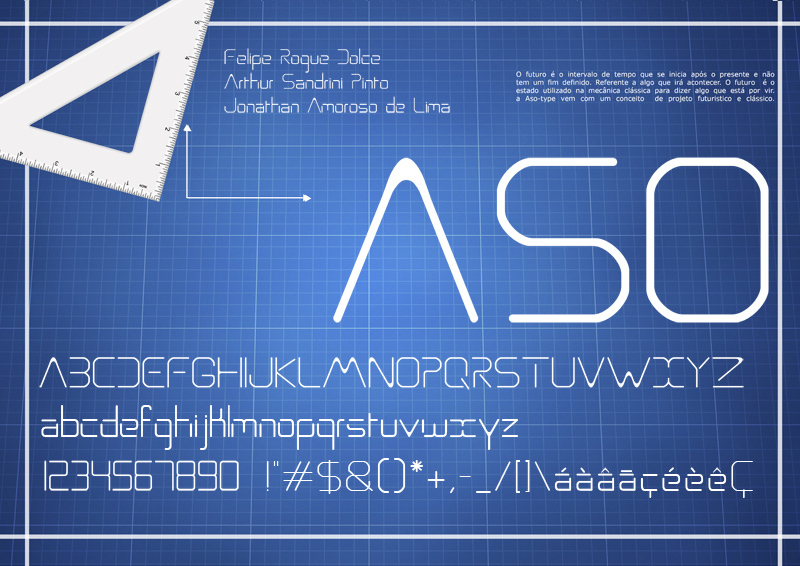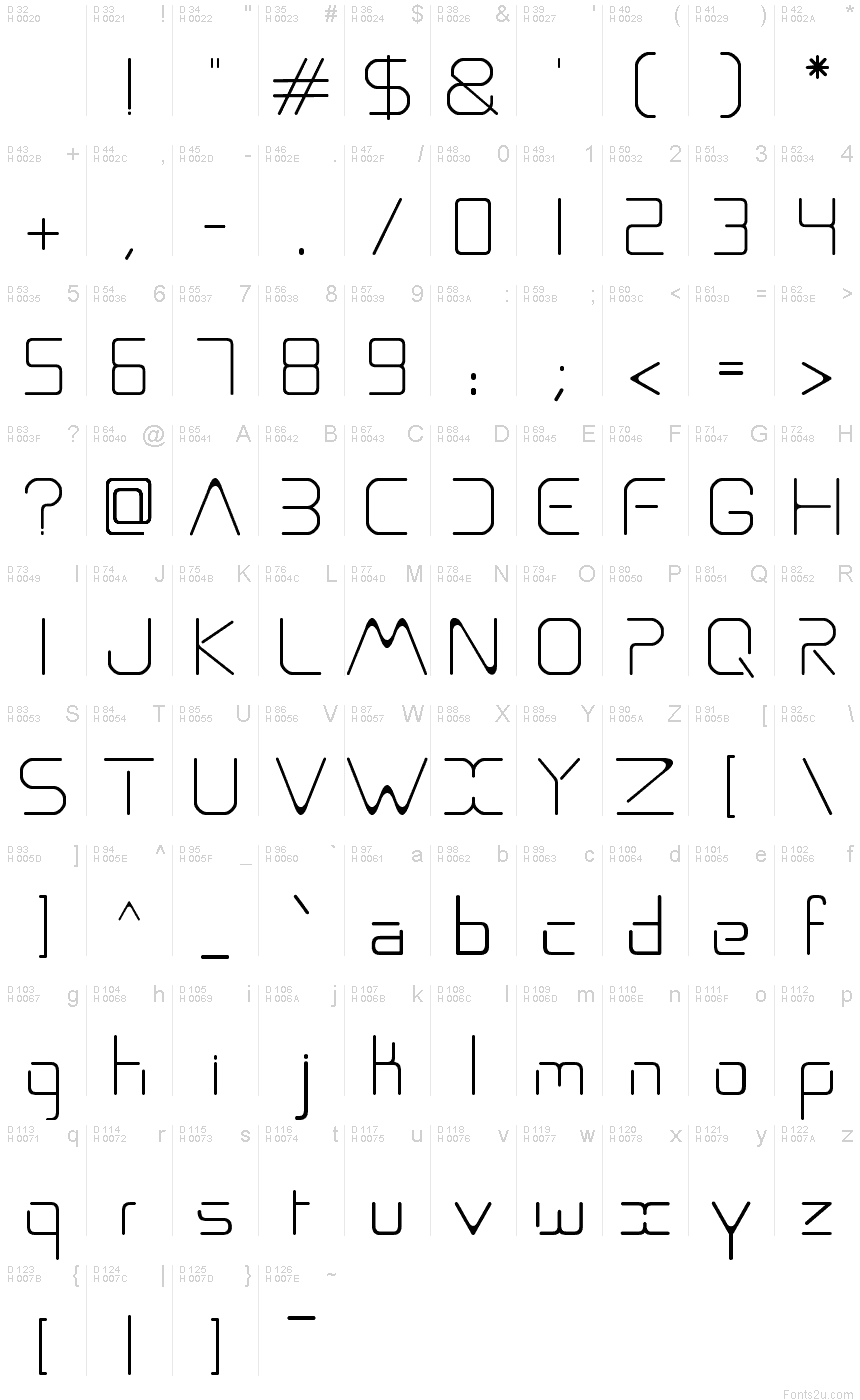
ASO
Hello everyone, we are the OCIO Design and developed our first typography. The ASO is a futuristic concept and classic.
ARTHUR SANDRINI PINTO - JONATHAN AMOROSO DE LIMA - FELIPE ROGUE DOLCE